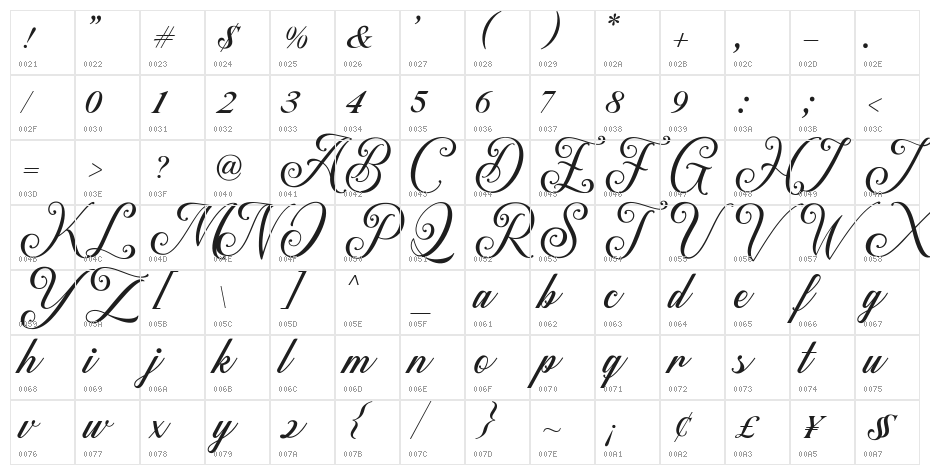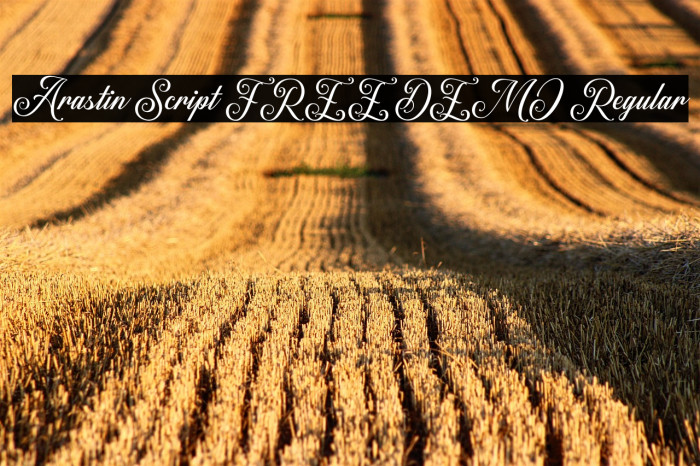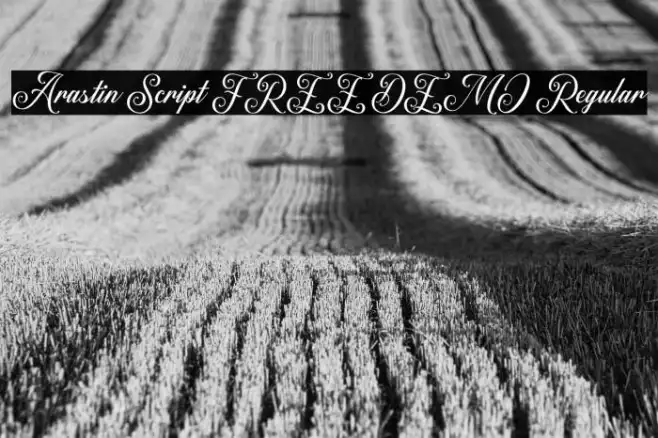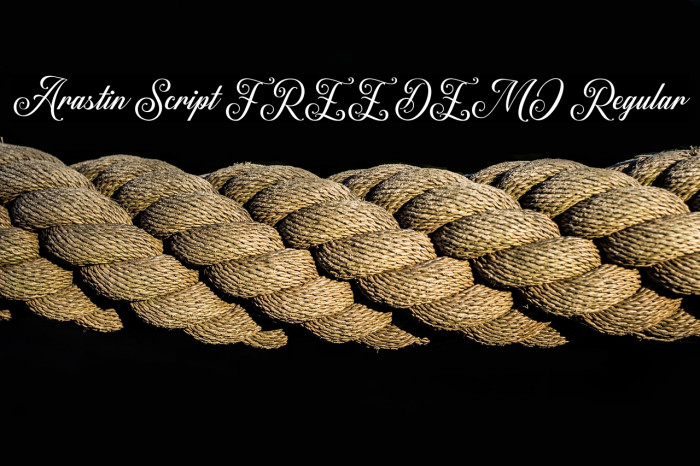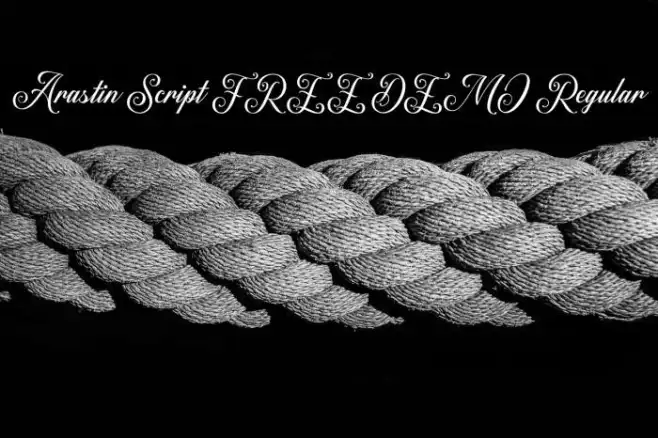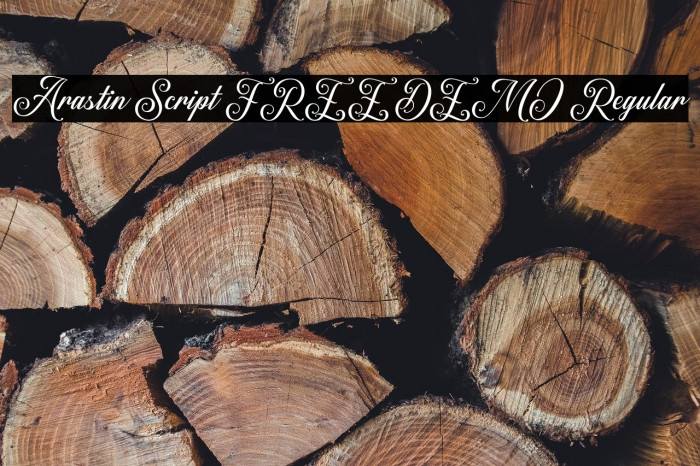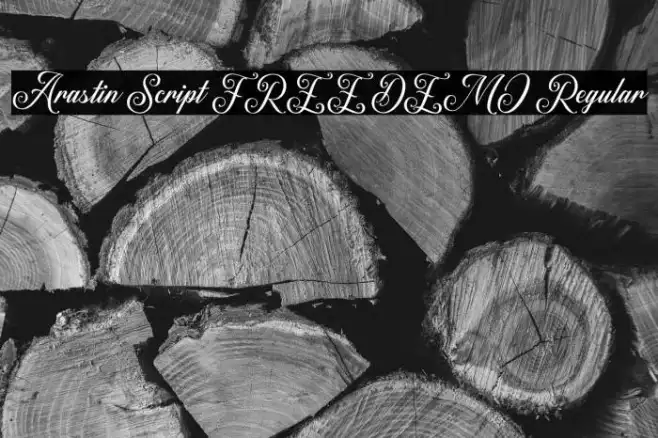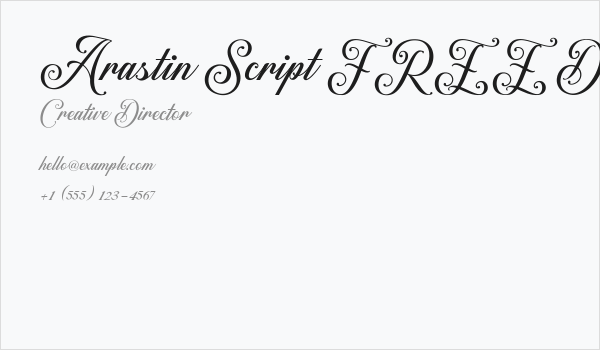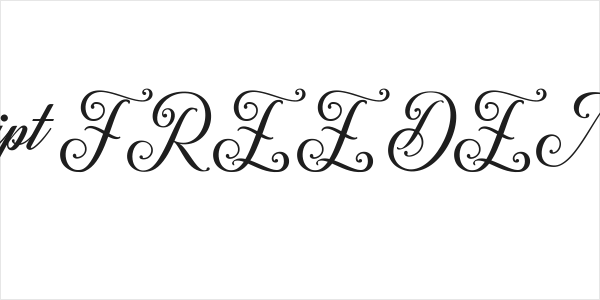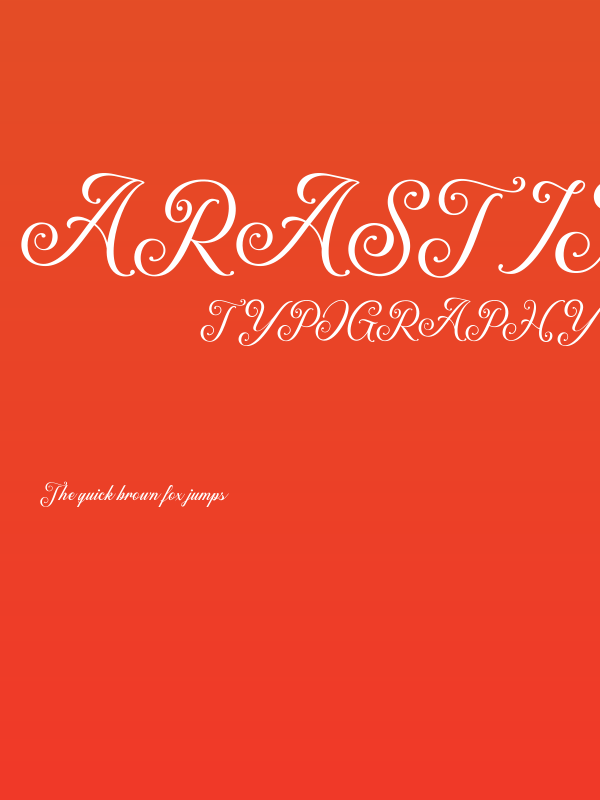
Arastin Script FREE DEMO Regular Font
Arastin Script FREE DEMO Regular Description
This elegant script font features a sophisticated and flowing design, characterized by its smooth, cursive strokes and graceful curves. The uppercase letters are adorned with delicate swashes, adding a touch of refinement and flair. The lowercase letters maintain a consistent flow, enhancing readability while preserving the font's decorative nature. The numerals and special characters are crafted with the same attention to detail, ensuring a cohesive look across all text elements. This font's style is both classic and timeless, making it suitable for a variety of design applications.